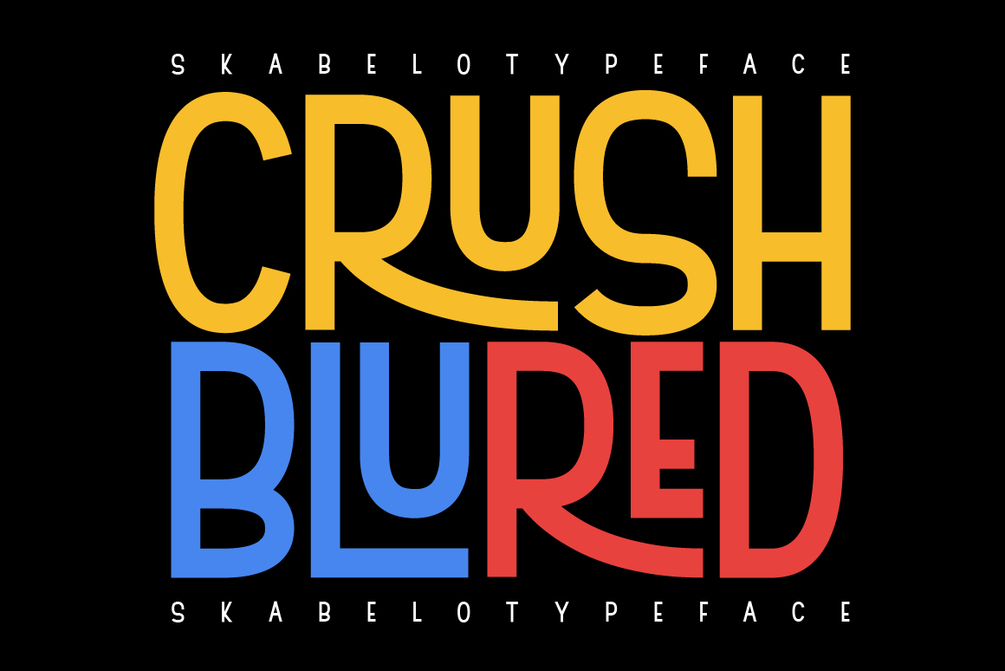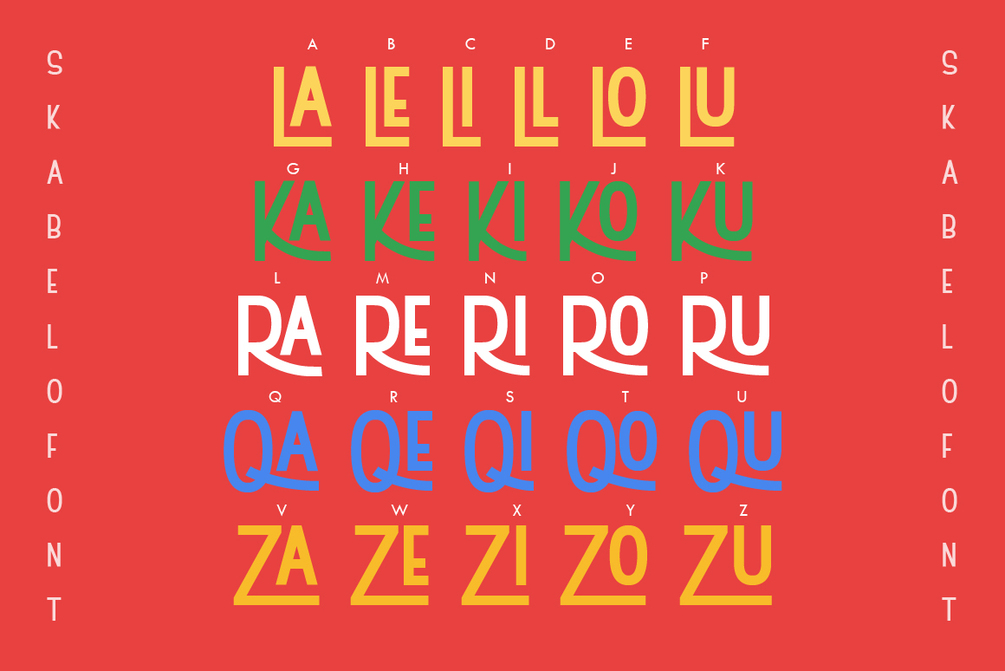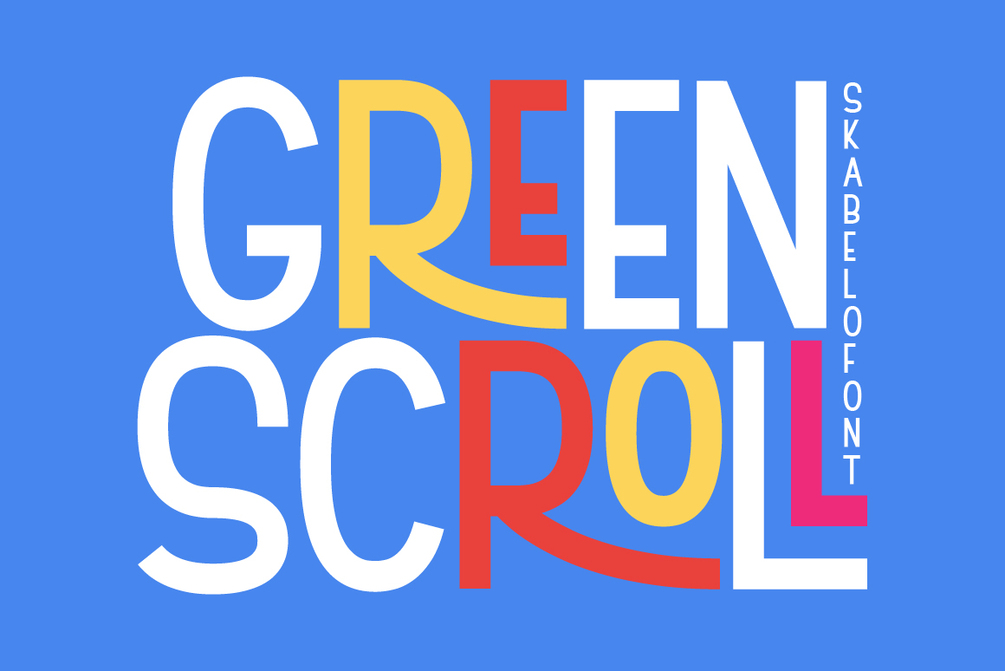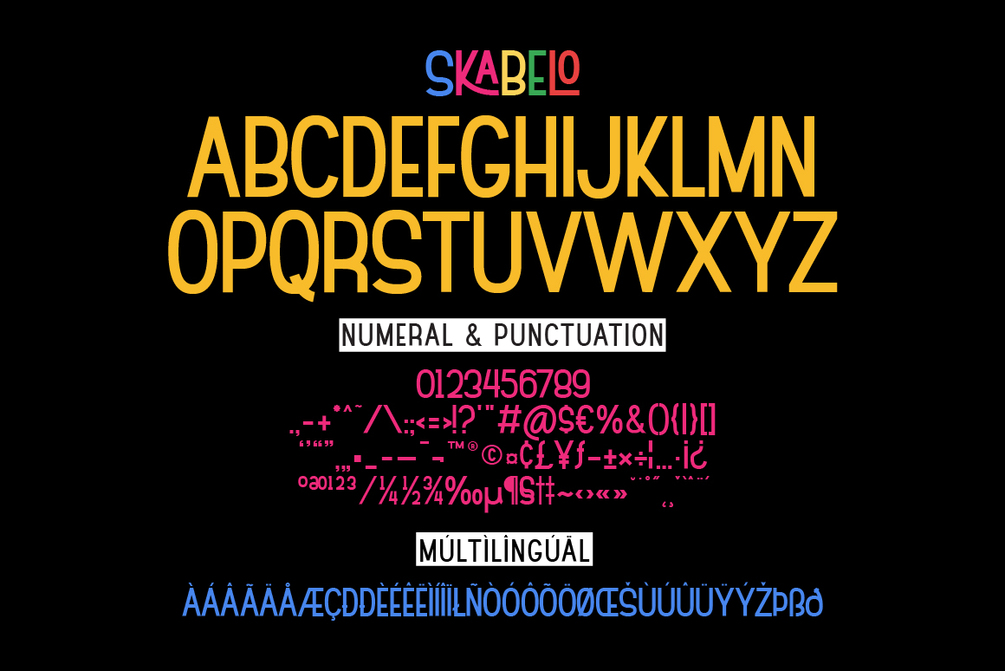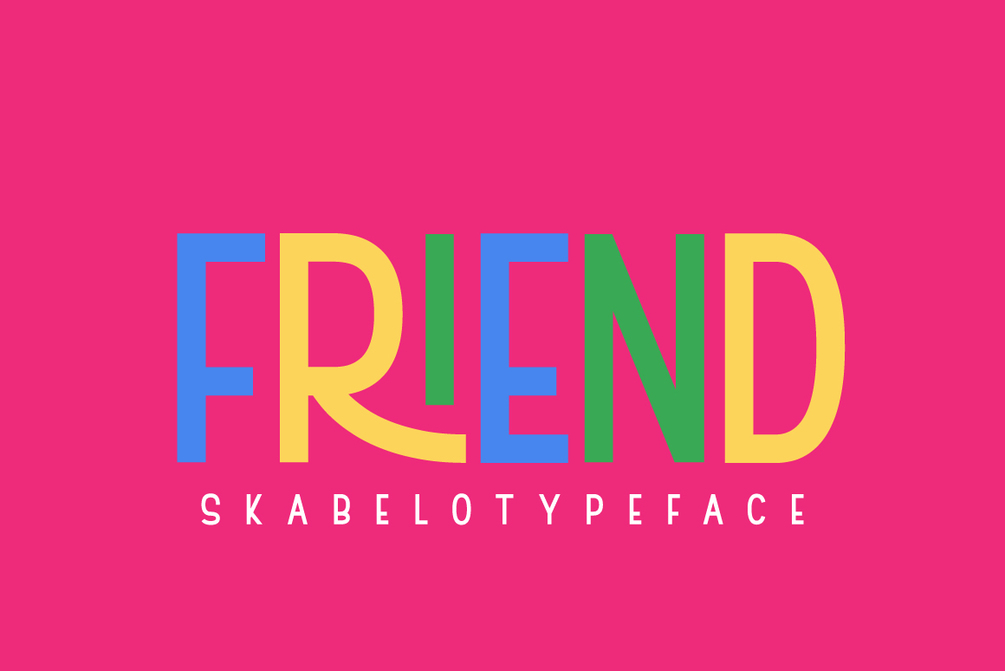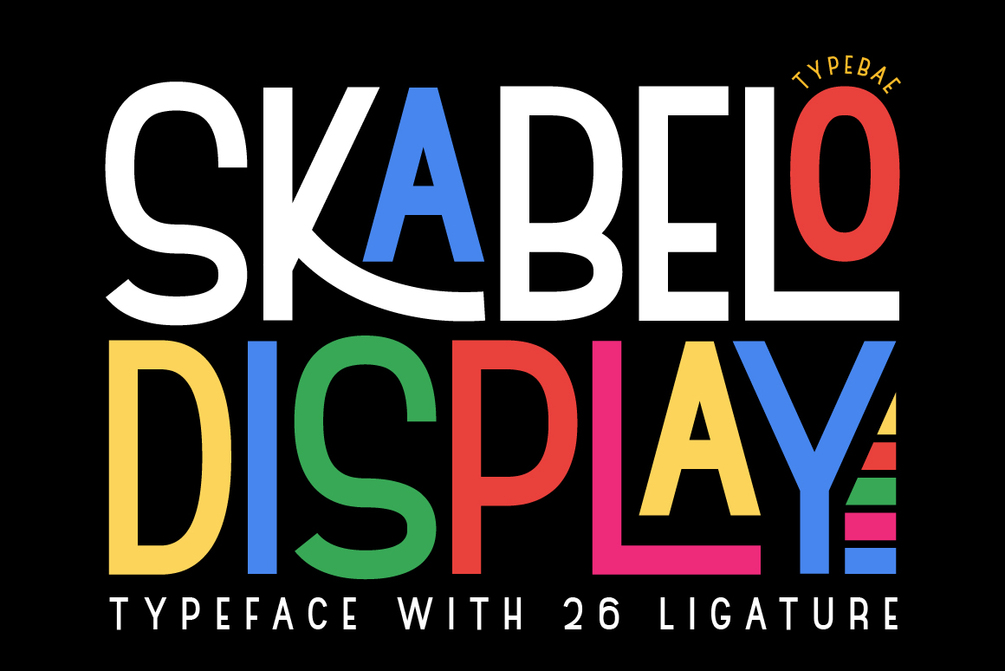
Skabelo
Skabelo is a display font with simple and playful. This font offers a collection of 26 unique ligatures, enabling creative and visually engaging typographic compositions. Its tall character design facilitates adjustments and is enjoyable to explore various shapes and layouts.
Feature: 26 Ligatures, Alternate, Multilingual and PUA encoded.